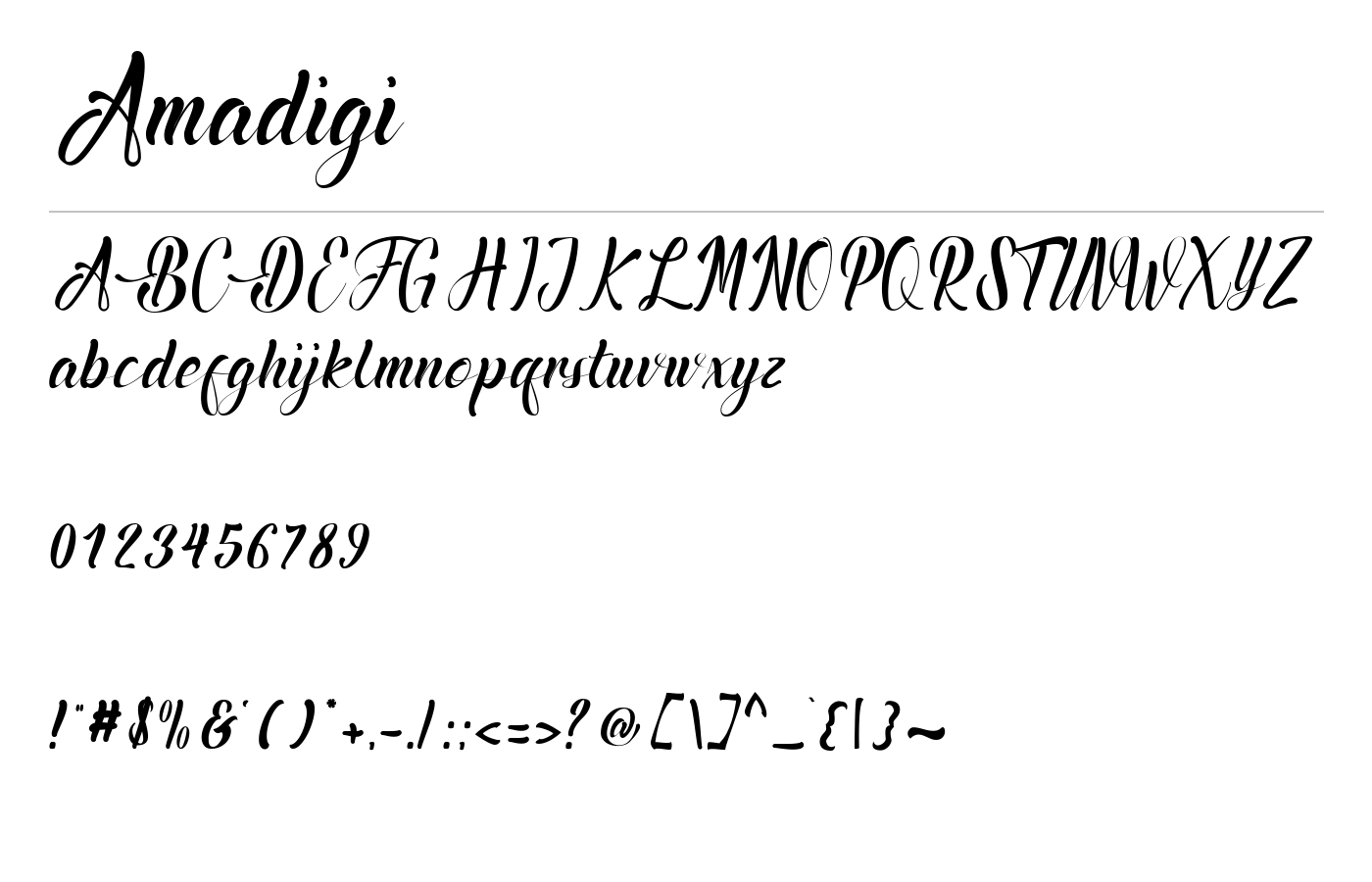
Amadigi is an elegant script font featuring smooth, flowing strokes with moderate contrast, giving it a refined yet approachable feel. Its swirly uppercase and fluid lowercase letters blend traditional calligraphy with a contemporary touch, making it perfect for branding, invitations, and stylish headlines that require a graceful and personal aesthetic. This font shines in projects that seek to convey sophistication and charm with a modern handwritten flair.
Amadigi Font
About Amadigi Font
| Font family | Amadigi Font |